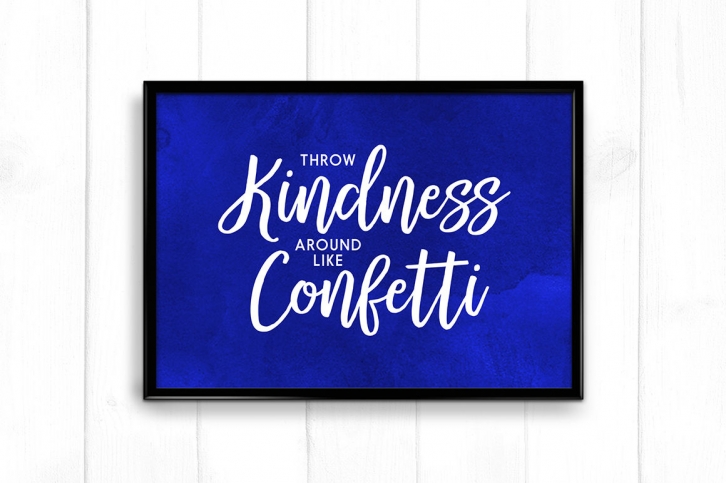
For the separate swashes font, type lowercase a-z for the beginning swashes and end swashes. Ideal for wedding invitations, businness card, logo, merchandise, greeting cards, prints, blog banners, apparel, quotes and so much more!